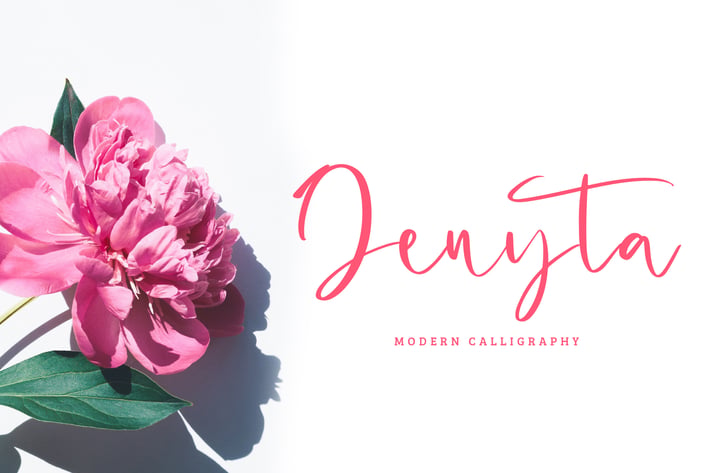
Jenyta Modern Calligraphy Font
Jenyta is a Modern Calligraphy Font that can make your text appear elegant, luxurious, and modern!
Jenyta is perfect for branding projects, logo, wedding designs, social media posts, advertisements, product packaging, T-shirt design, product designs, label, photography, watermark, invitation, stationery, and any projects.